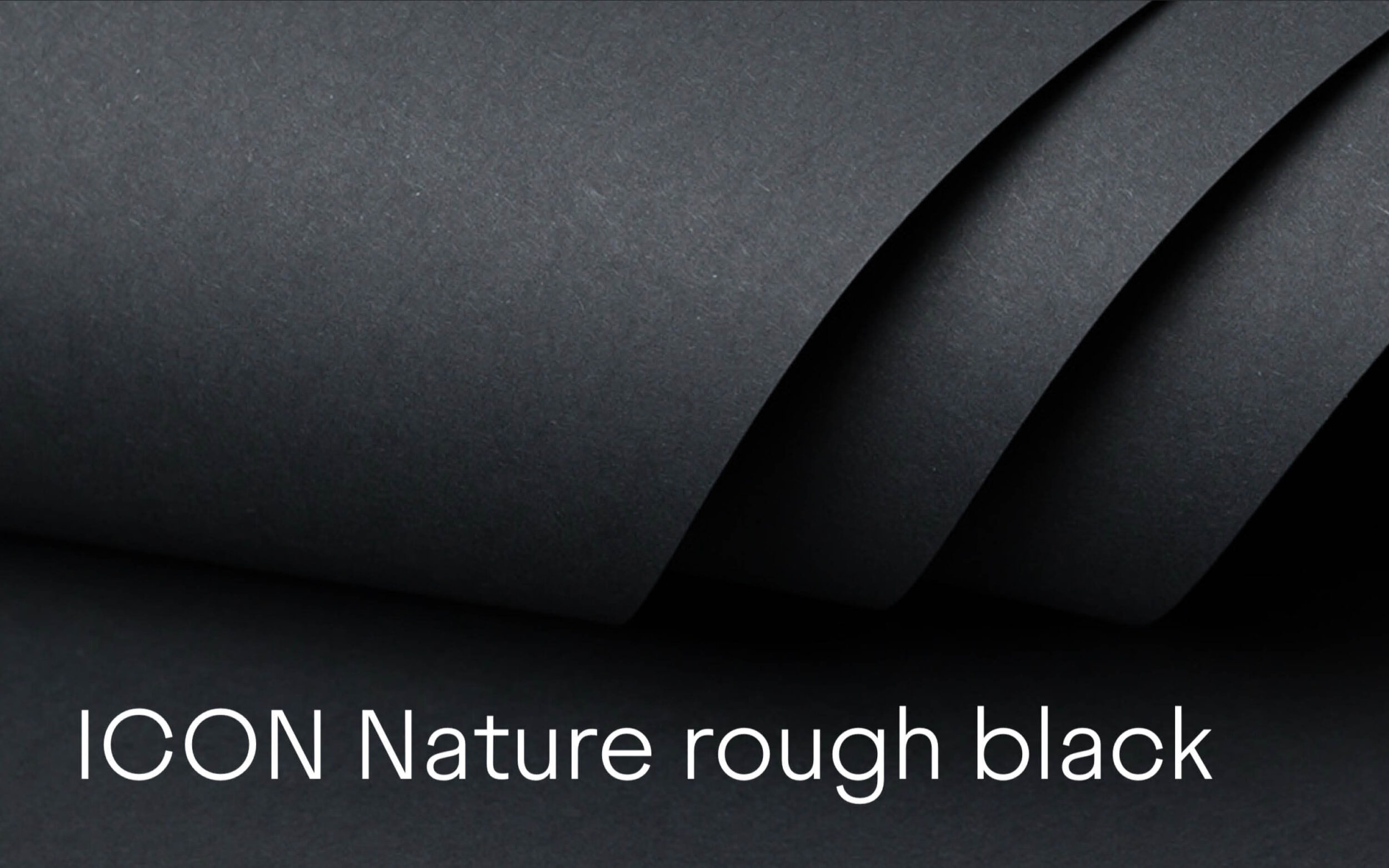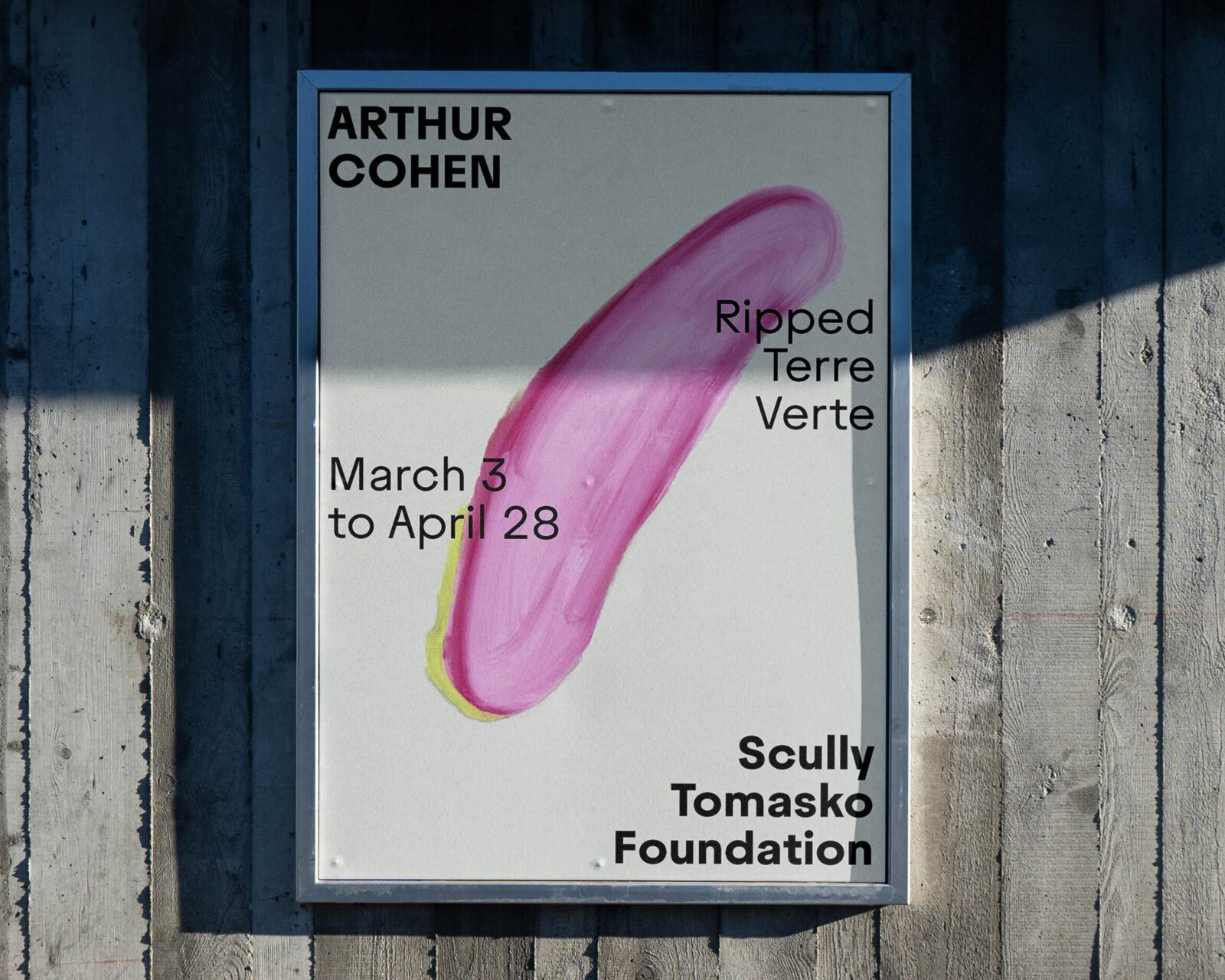
Juneau
The extraordinary usual.
Juneau is geometric but dynamic, it’s constructed but grotesque, it’s friendly but serious, it’s modern but also very classy. In short, Juneau is a lovely oxymoron, an ambivalent, ever reliable partner in crime.
The typeface’s architecture lives off a mix of “circular” rounds inspired by old metal grotesques like Miller & Richard’s Grotesques, economic proportions and wide spread diagonals. The result feels dynamic and modern but not too timely. A modern classic, if you will. Because we do.
Whether it’s for French cook books, bike manufacturer annual reports, chemical compounds, luxury skin care packaging, concrete-based architectural guides, philosophy book footnotes or editorial design, Juneau is an eager workhorse. Together, the wide range of weights from Thin to Black, its powerful mid-range weights that serve perfectly well for text, the extreme styles that deserve to be set in big and proud sizes and the accompanying Italics grant every imaginable wish. The design of the Juneau’s Italics relies on the structure of the sturdy Upright with a shallow 11,98°-angle and a rotated twist. This approach distinguishes the two while ensuring perfect integration.
With more than 1,300 glyphs per style, including native-approved Cyrillic and a broad Latin character, Juneau speaks more than 250 languages. On top of all that Juneau is packed with a quiver of arrows and features stylistic alternates, case-sensitive punctuation, multiple sets of figures and small caps to pamper your typographic heart.